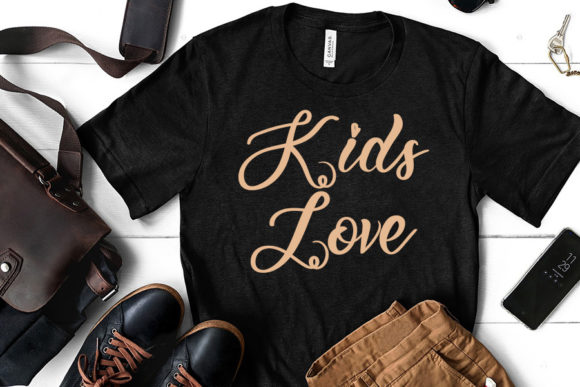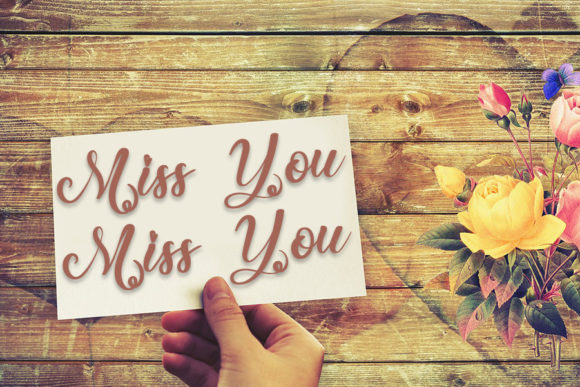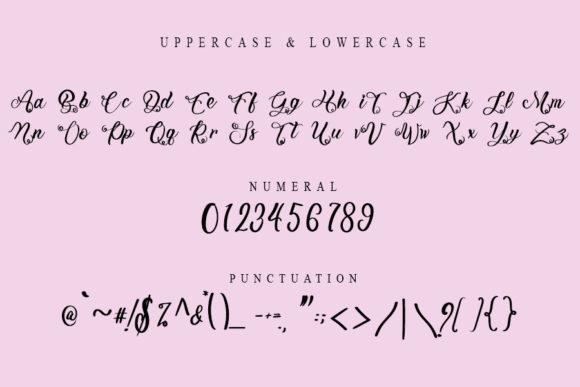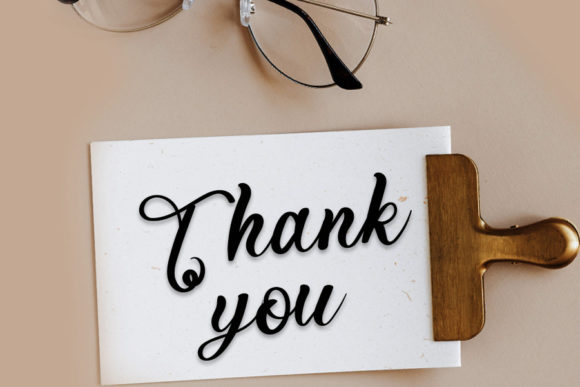
Introduction to Marshmellow Font
Have you ever sat down with a cup of coffee, surrounded by scraps of paper and half-empty design software windows, searching for that perfect font to give your project a little extra oomph? For designers, finding the right font can be the difference between a design that’s just okay, and one that truly pops. And if you’re anything like me, you’ve probably spent hours scrolling through design resources, searching for that elusive combination of style and functionality.
Enter the Marshmellow Font – a sweet and delicate handwritten font that’s as charming as it is versatile. With its dainty, joyful feel, this font is the perfect addition to any design project that needs a touch of romance and personality.
Whether you’re crafting wedding invitations, designing cards for a loved one, or simply looking for a high-quality font to elevate your creative project, the Marshmellow Font is an excellent choice. And the best part? It’s available for free download, complete with a transparent background for seamless integration into your design. Let’s take a closer look at this delightful font and explore its many uses and benefits.
Key Features of Marshmellow Font
- Features a unique, playful, and whimsical design style
Honest Review: Marshmellow Font
As a designer, I’m always on the lookout for high-quality design resources that can elevate my creative projects. The Marshmellow Font is one such find that I’m excited to share with you.
What works well is the Marshmellow Font’s versatility. It comes in a variety of weights and styles, making it perfect for both digital and print projects. The transparent background option is a bonus, allowing me to easily place the font on any design without worrying about a distracting background. ✨
Here are some of the key features I like about the Marshmellow Font:
- High-quality design with crisp lines and smooth curves
- Variety of weights and styles for customization
- Limited character set, which may be a concern for longer text-based projects
- No web font option, making it less suitable for online projects
Overall, I’m impressed with the Marshmellow Font’s potential for adding a touch of whimsy to my creative projects. While it may have some limitations, its unique design and free download option make it a valuable addition to any designer’s toolkit.
How to Use Marshmellow Font
To get the most out of the Marshmello Font, experiment with different font sizes, colors, and combinations to create visually appealing designs. You can also use the font in conjunction with other design elements, such as images and graphics, to add depth and interest to your project.
The Marshmello Font is commonly used for creative projects, such as social media graphics, flyers, posters, presentations, and documents. It is also suitable for branding and advertising materials, such as logos and business cards.
Yes, the Marshmellow Font has a transparent background, making it easy to use with any design element or background. This feature allows you to create a seamless and cohesive design that blends perfectly with your creative project.